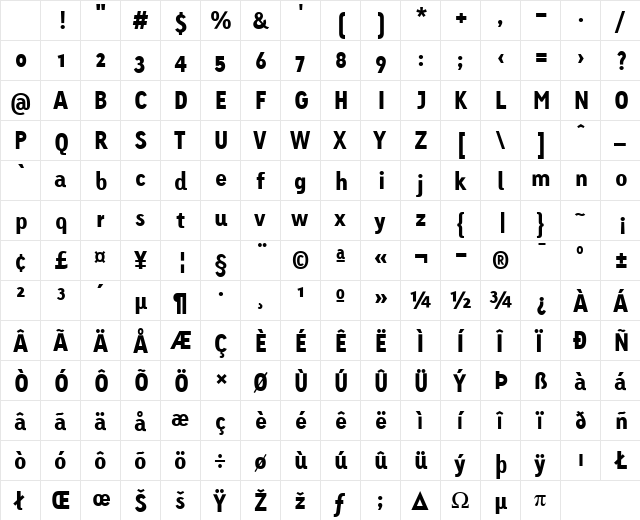
LTTetria Black Regular
Design Context for LTTetria Black
LTTetria Black is a composed and adaptable typeface that performs quietly and consistently across a wide range of design contexts.
Pro Tip: Use LTTetria Black in both headline and body roles to test its range before committing to a single application.